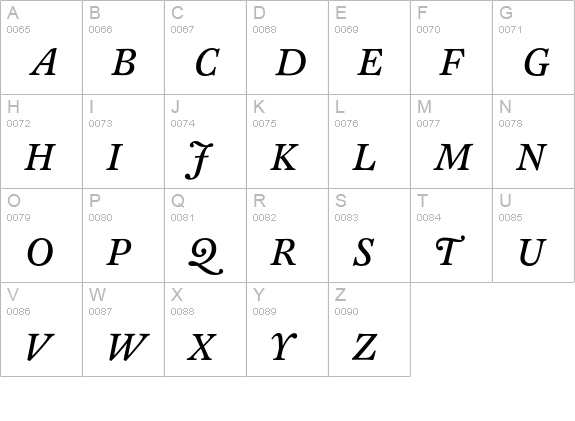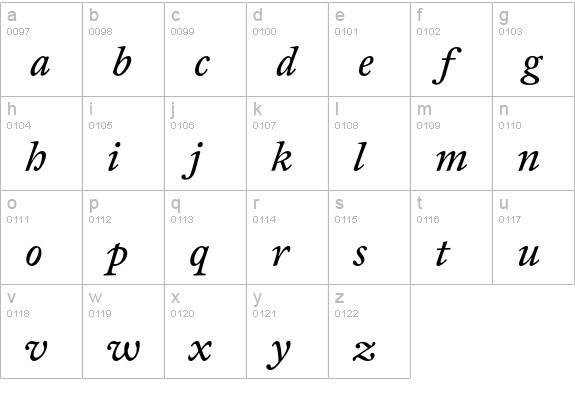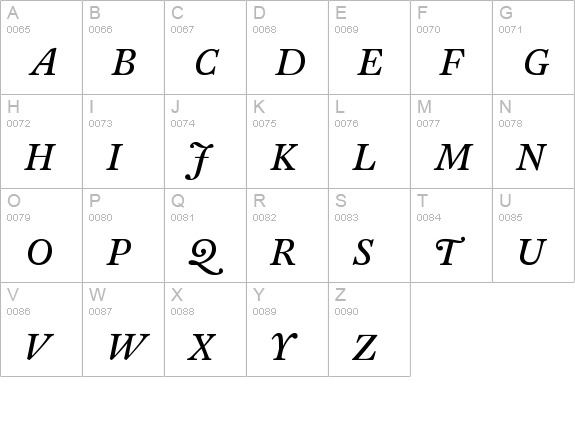
CliffordSix-Italic is a distinctive, italic variant in the CliffordSix typeface family \xE2\x80\x94 well suited to design and typography projects.
CliffordSix-Italic is a sophisticated and elegant font that brings a touch of sophistication to any design project. Its sleek, slanted style exudes a sense of modernity and creativity, making it a perfect choice for headers, logos, and branding. This italic variation of the CliffordSix font family adds a unique flair to your text, adding a touch of class and sophistication. Best of all, CliffordSix-Italic is available for free download at FontsMarket.com. This means you can easily incorporate this stunning font into your projects without breaking the bank. Whether you're designing a website, creating marketing materials, or crafting personal projects, CliffordSix-Italic is sure to elevate your designs to the next level. Download it today and add a touch of elegance to your work!